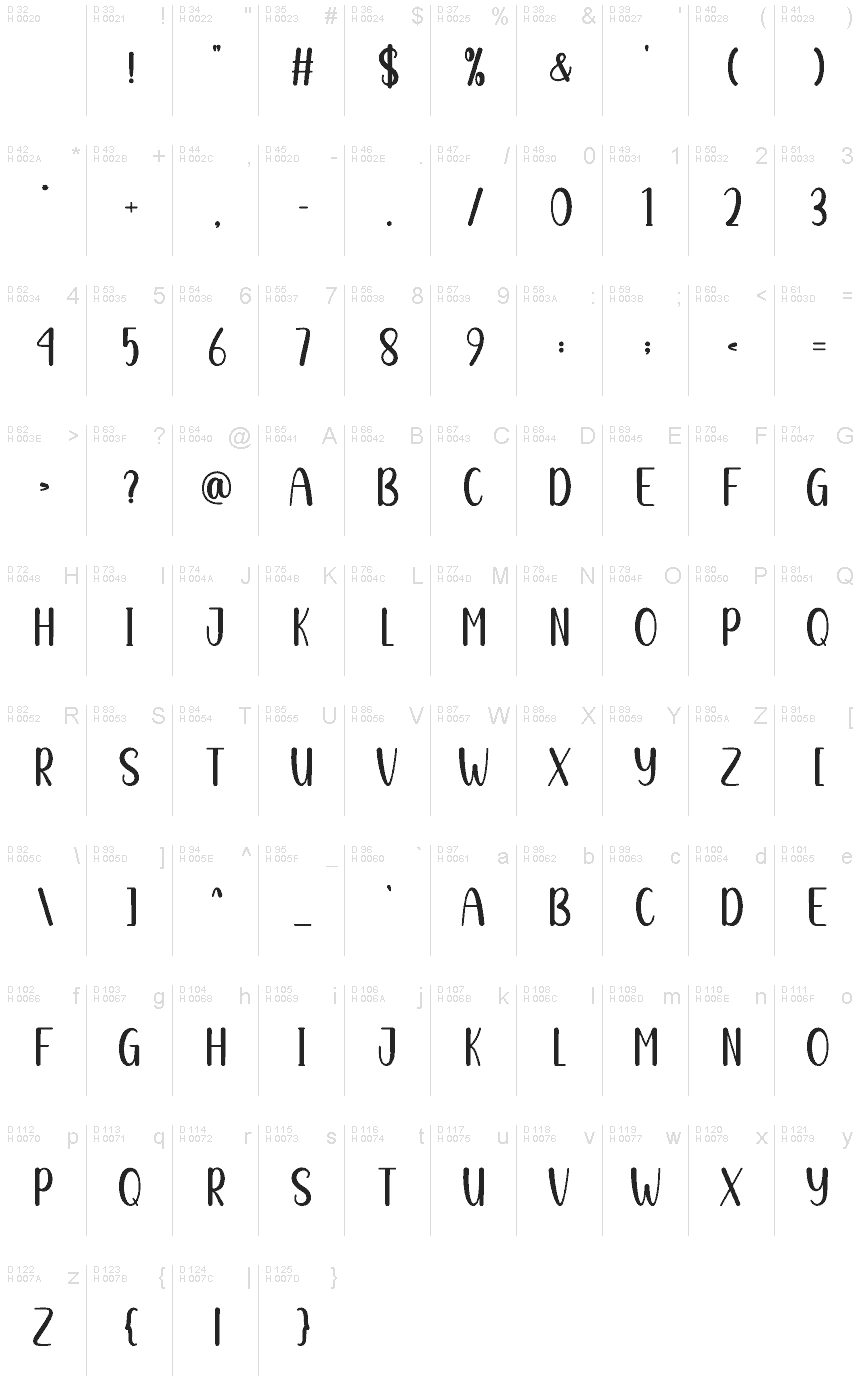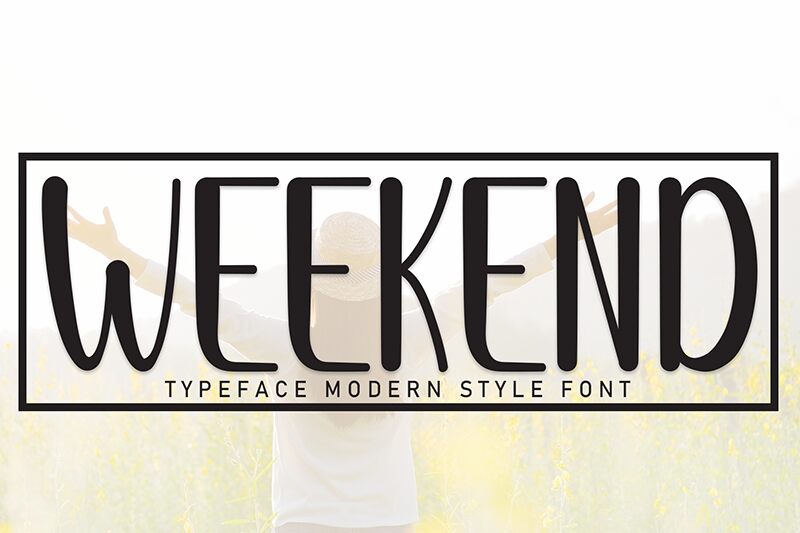
Weekend
Weekend by Andi Moz is a handcrafted typeface that comes with a lot of possibilities, and a perfect fit for vintage typography posters for local businesses, packaging branding designs for coffee shops, bakeries, restaurants and book stores, social media designs with quotes in a handwritten style, greeting and invitation cards, apparel printing and typography related artwork.
You can use the font on posters and book titles for fashion and photography projects or add it as one of the design elements to your social media posts or online shop products. You can also use this typeface on a t-shirt in a vintage style (add the Weekends and Weekdays with a bold style to the back of the shirt with the same font) for a more trendy look and feel. And that’s not the only way you can get creative with Weekend, it is also great for websites and blogs; especially those related to photography, events and festivals.